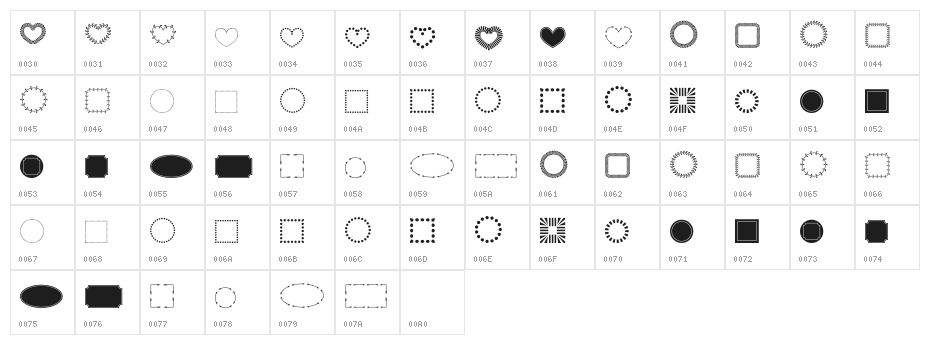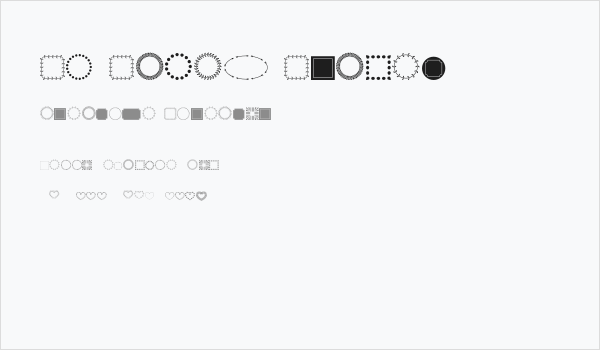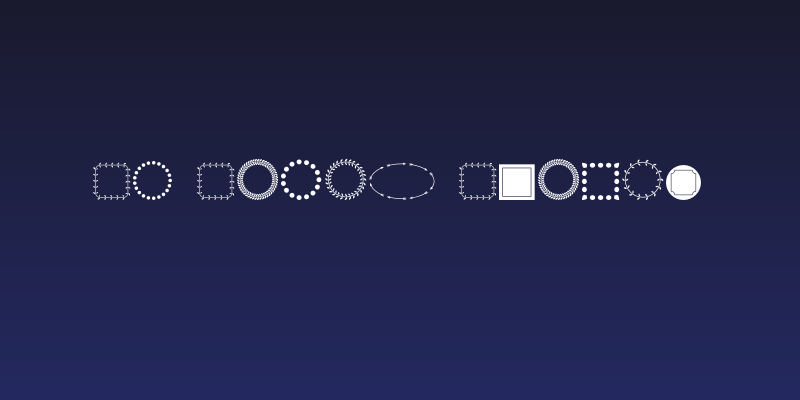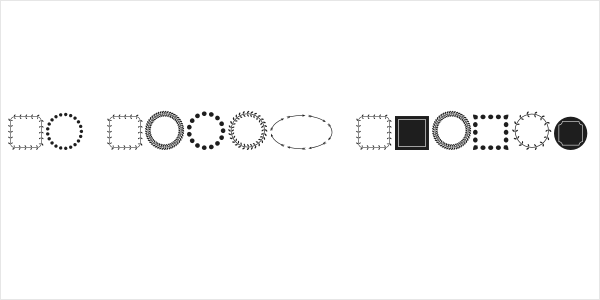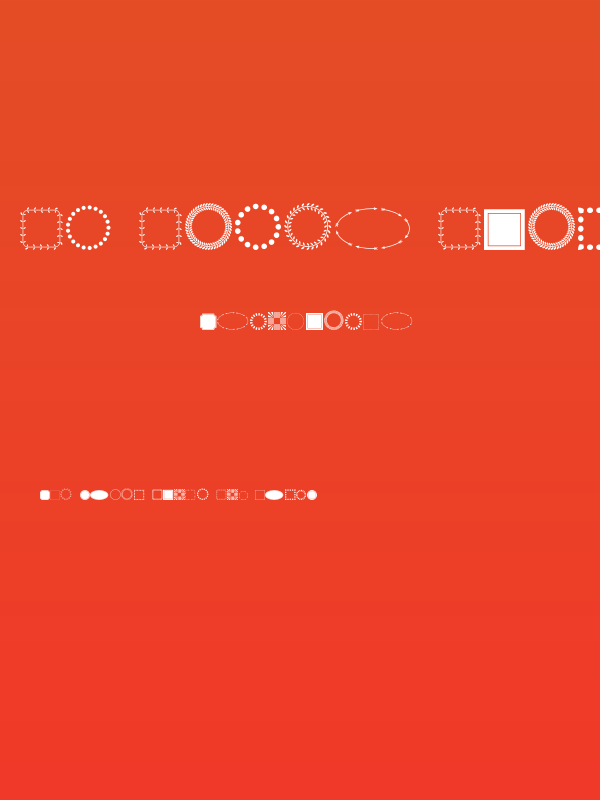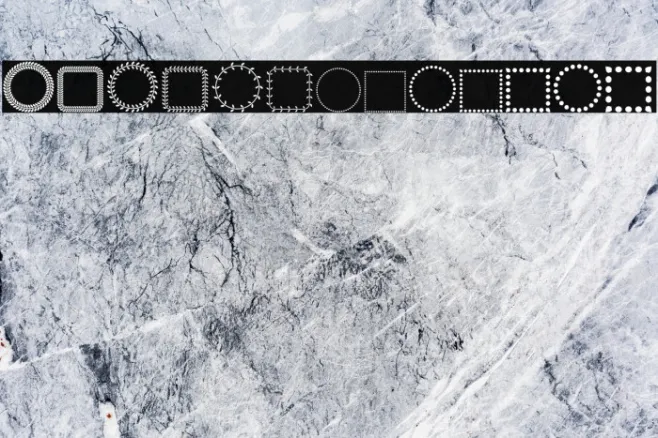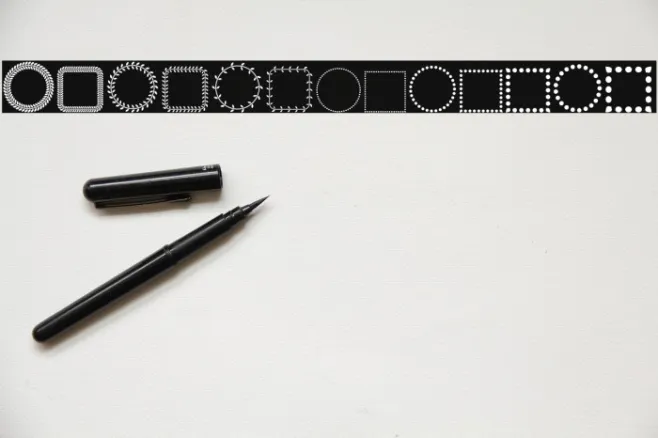
FL Fancy Frames Font
FL Fancy Frames Description
A decorative dingbat font featuring a variety of ornate frames in circular, square, oval, and heart shapes, with diverse border styles such as dots, dashes, leaves, and solid fills. Each character is a unique frame design, suitable for embellishing text or images.
| Use Case | Frames, borders, embellishments, graphic accents. |
| Proposed Projects | Invitations, scrapbooking, certificates, greeting cards, digital art, decorative labels. |